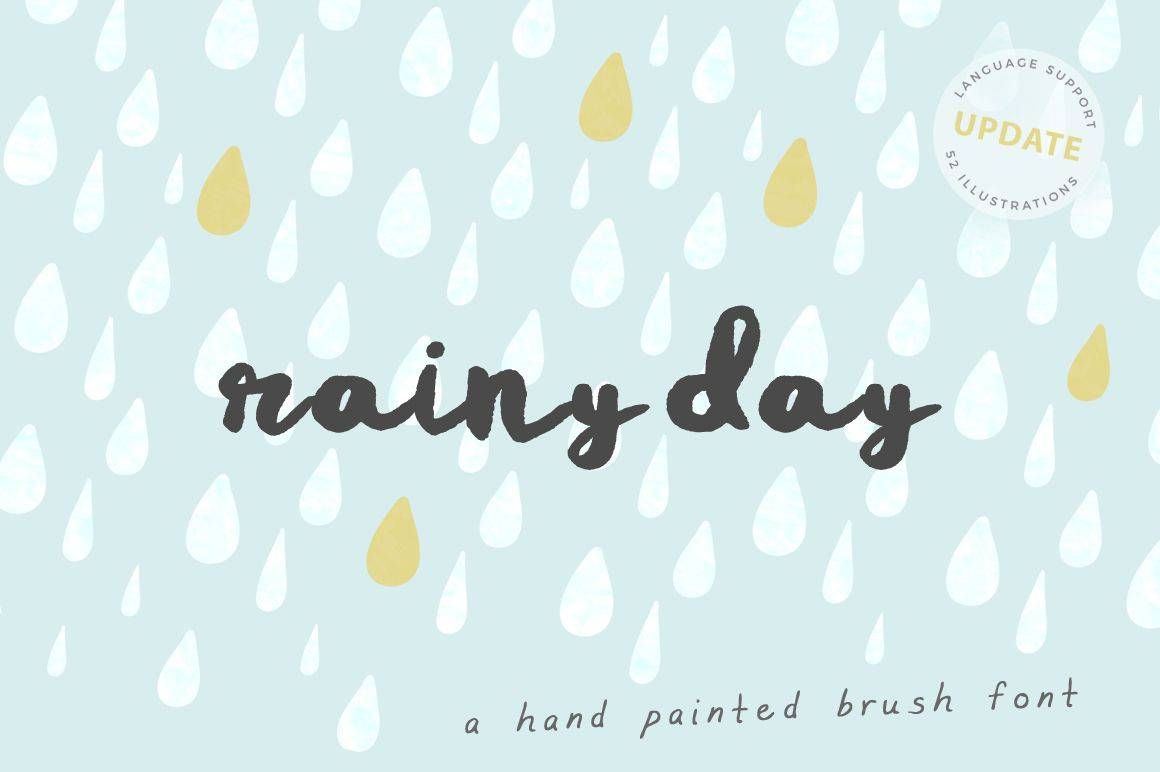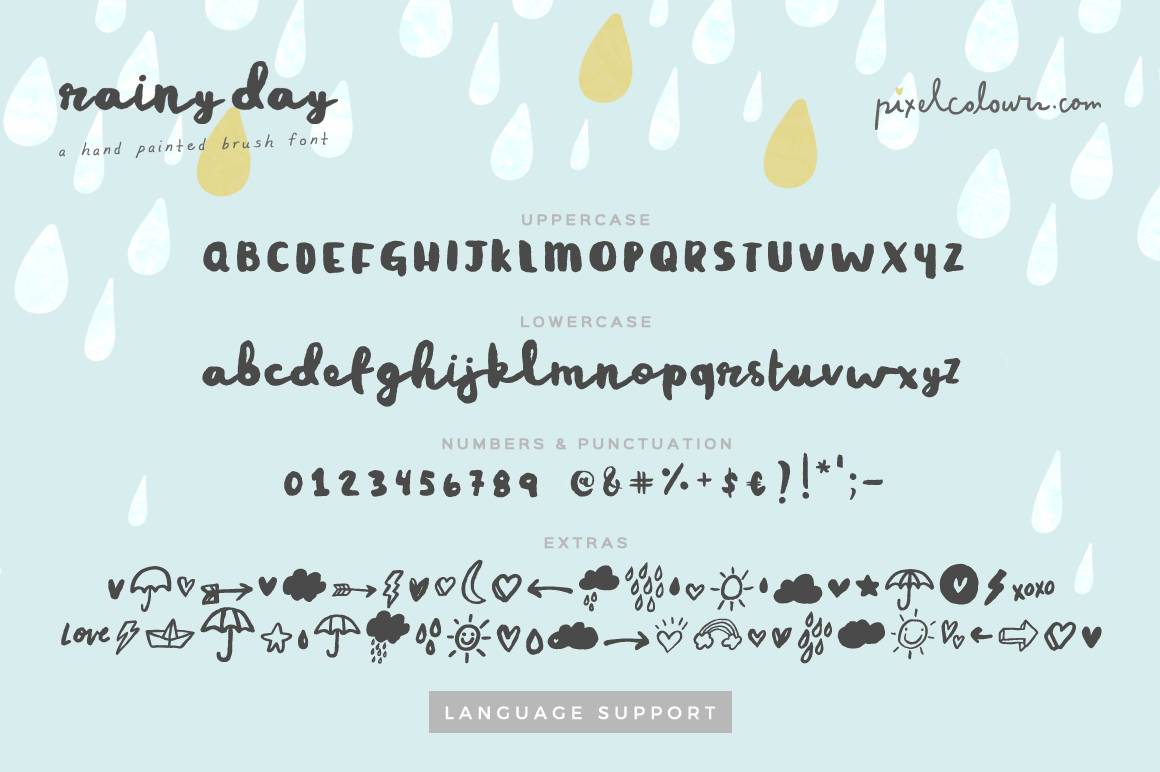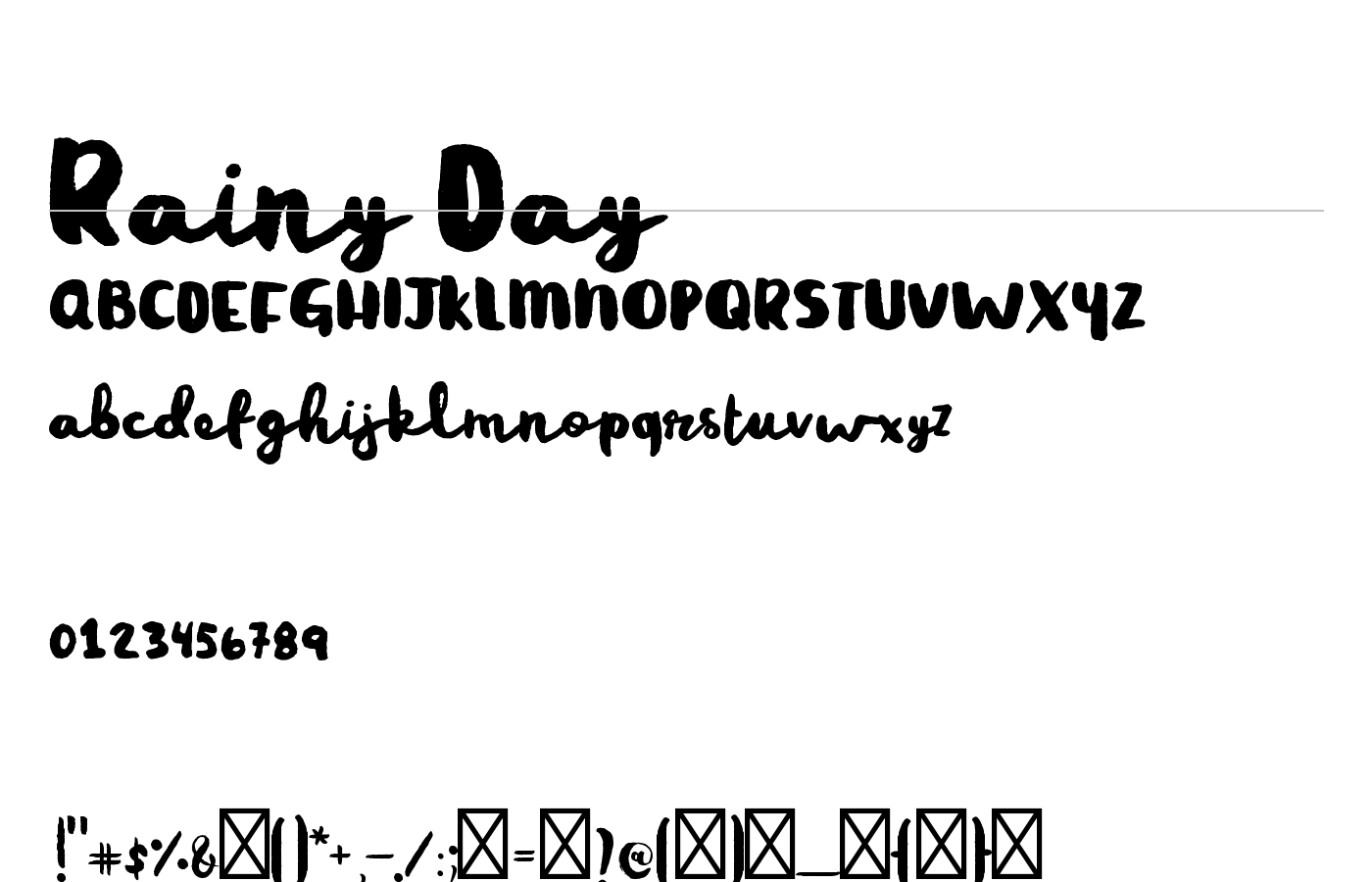
Rainy Day Brush Font is a bold and playful brush script that combines a casual hand-painted feel with strong, rounded letterforms. Its varied stroke widths and lively texture give it an organic, artistic charm that works beautifully for creative branding, informal headlines, and fun packaging. This font adds a friendly and approachable personality, making it perfect for designs that want to evoke warmth and creativity.
Rainy Day Brush Font
About Rainy Day Brush Font